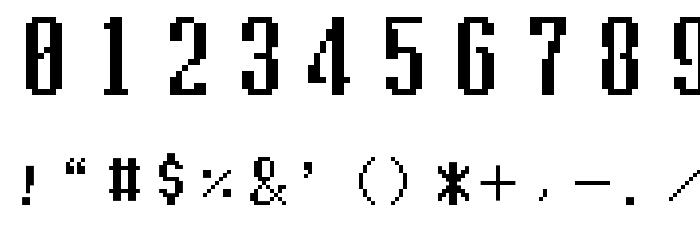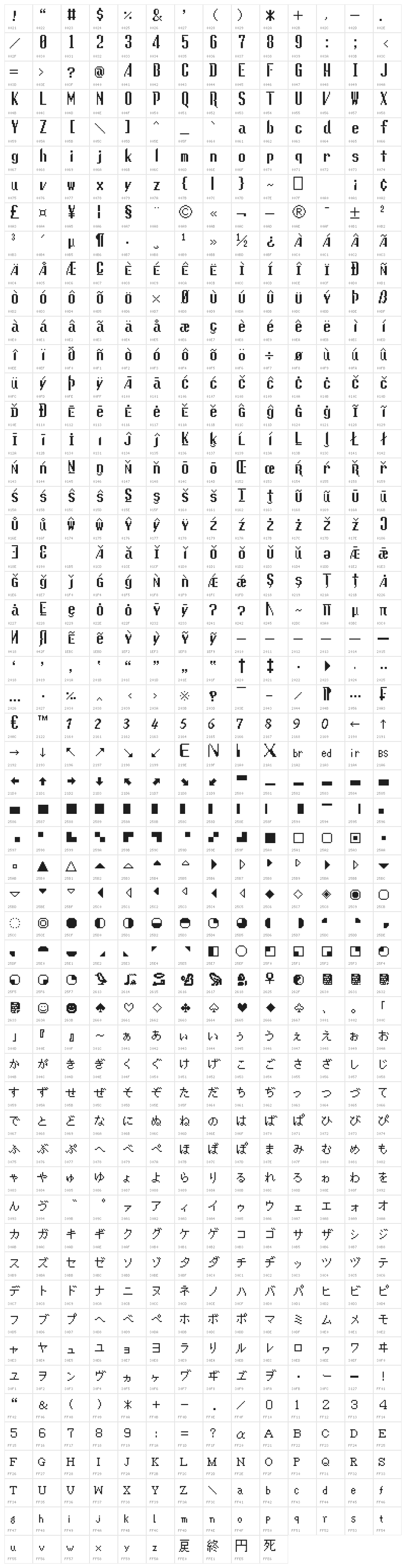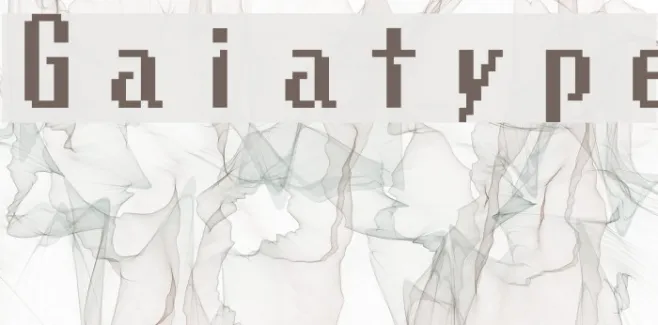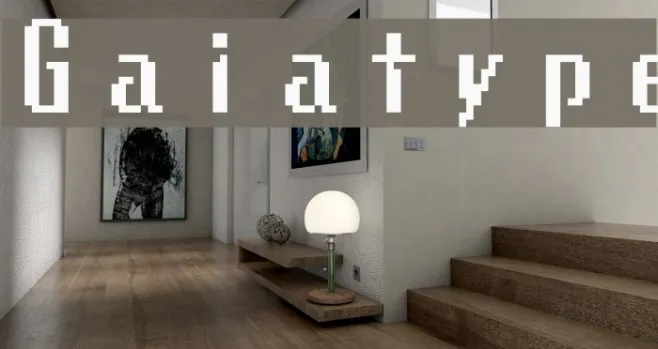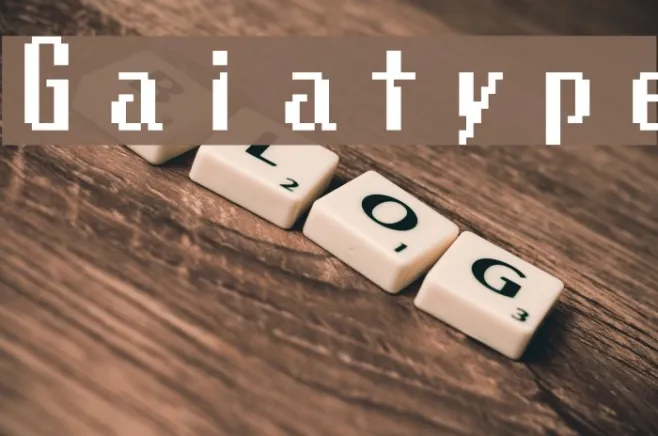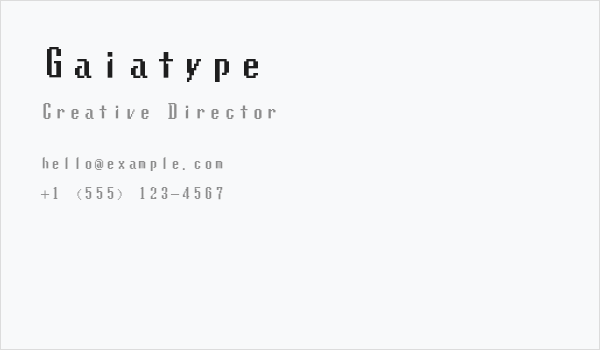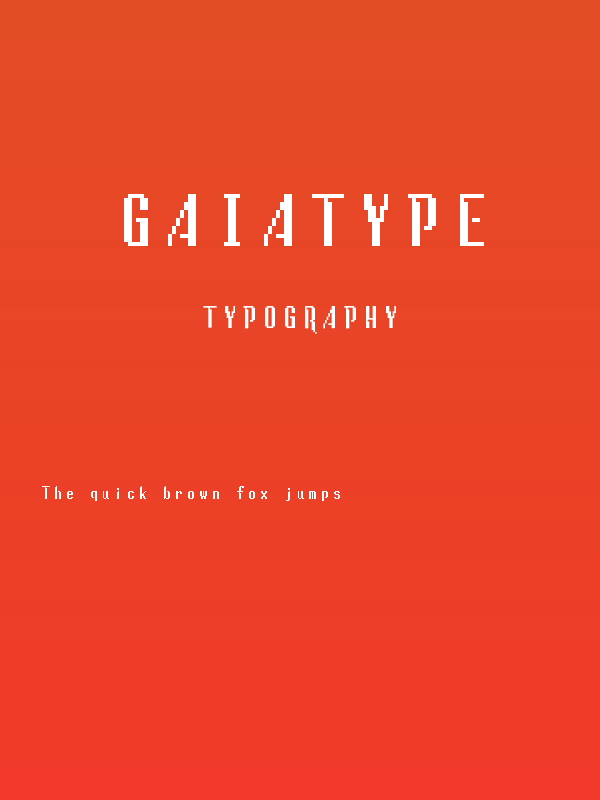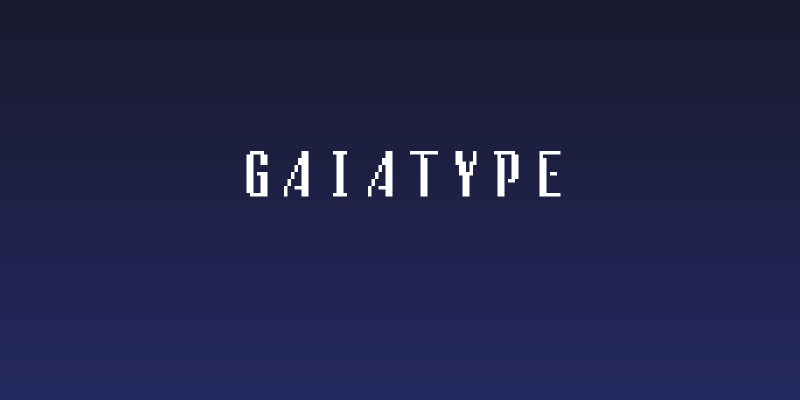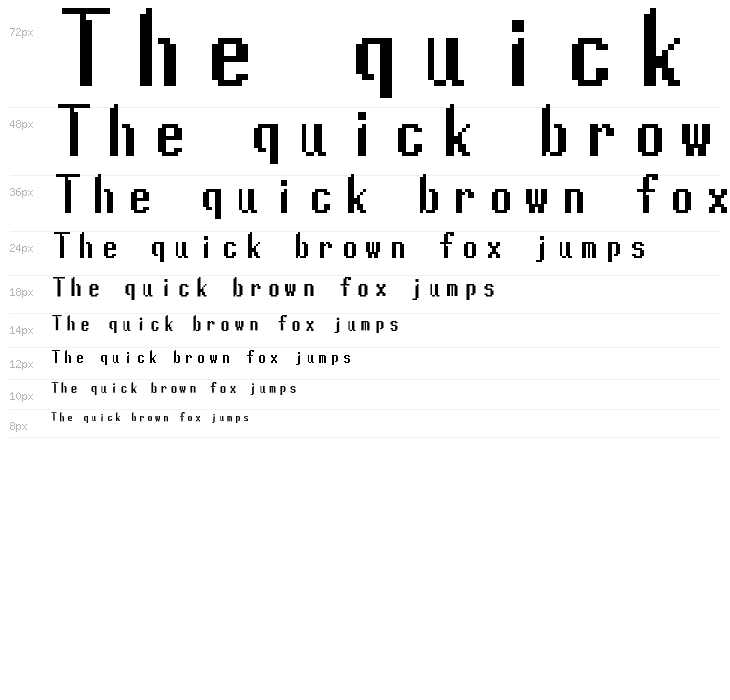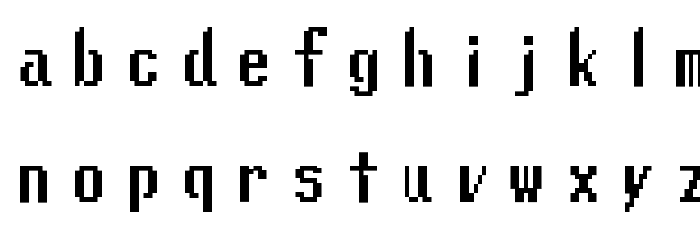
Gaiatype Font
Gaiatype Description
This font features a bold, pixelated style that evokes a retro, digital aesthetic reminiscent of early computer graphics. The characters are blocky and geometric, with consistent stroke widths that create a uniform appearance. The uppercase and lowercase letters maintain a similar structure, enhancing readability while preserving the distinct pixelated look. Numbers and special characters follow the same design principles, ensuring a cohesive visual identity across all glyphs. This font's unique style makes it ideal for projects that aim to capture a vintage digital feel or for use in video game design.
| Use Case | Logos, Headlines, Digital Art |
| Proposed Projects | Ideal for retro video games, digital art projects, and nostalgic branding. |